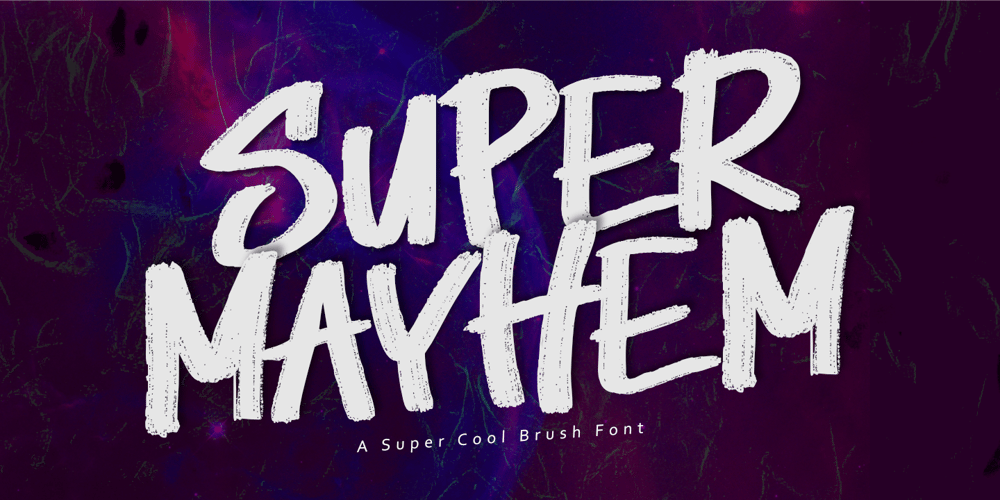
Super Mayhem Font Family was designed by Nurul Hidayani and published by Olivetype. Super Mayhem contains 1 styles and family package options. “Super Mayhem” is a bold, high-energy brush font that embodies raw intensity and unapologetic personality. Designed with rough, handcrafted strokes, it exudes a rugged, untamed charm, making it the perfect choice for designs that demand attention and attitude. Its super cool texture adds depth and character, ensuring every letter feels alive with motion and energy.With its unique, rebellious style, this versatile typeface is ideal for many creative projects. Whether you’re crafting an edgy poster, a striking headline, an unforgettable logotype, or a gripping movie title, “Super Mayhem” delivers unparalleled impact. This font is your go-to for adding a dynamic, handcrafted edge to any design project.Super Mayhem features :- Standard Latin- Numbers, symbols, and punctuations- Multilingual Support.- Fully accessible without additional design software- Simple Installations- Works on PC & MacThank You